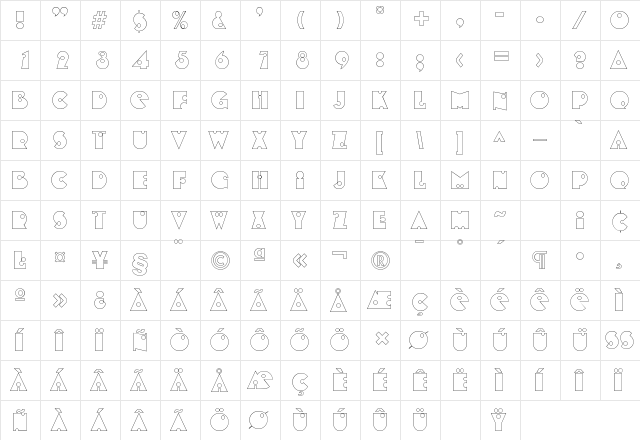
Shootout Regular
Design Context for Shootout Typeface
Shootout is a composed and adaptable typeface that performs quietly and consistently across a wide range of design contexts.